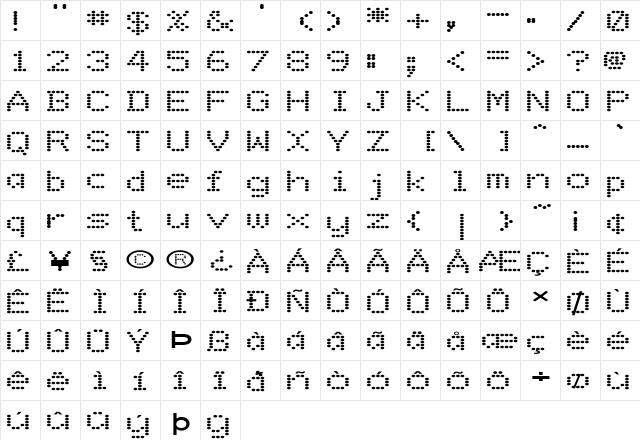
FZ DIGITAL 9 EX Normal
Design Context for FZ DIGITAL 9 EX
FZ DIGITAL 9 EX has a distinctly futuristic character, with geometric precision and clean angles that feel at home in technology, gaming, and sci-fi contexts.